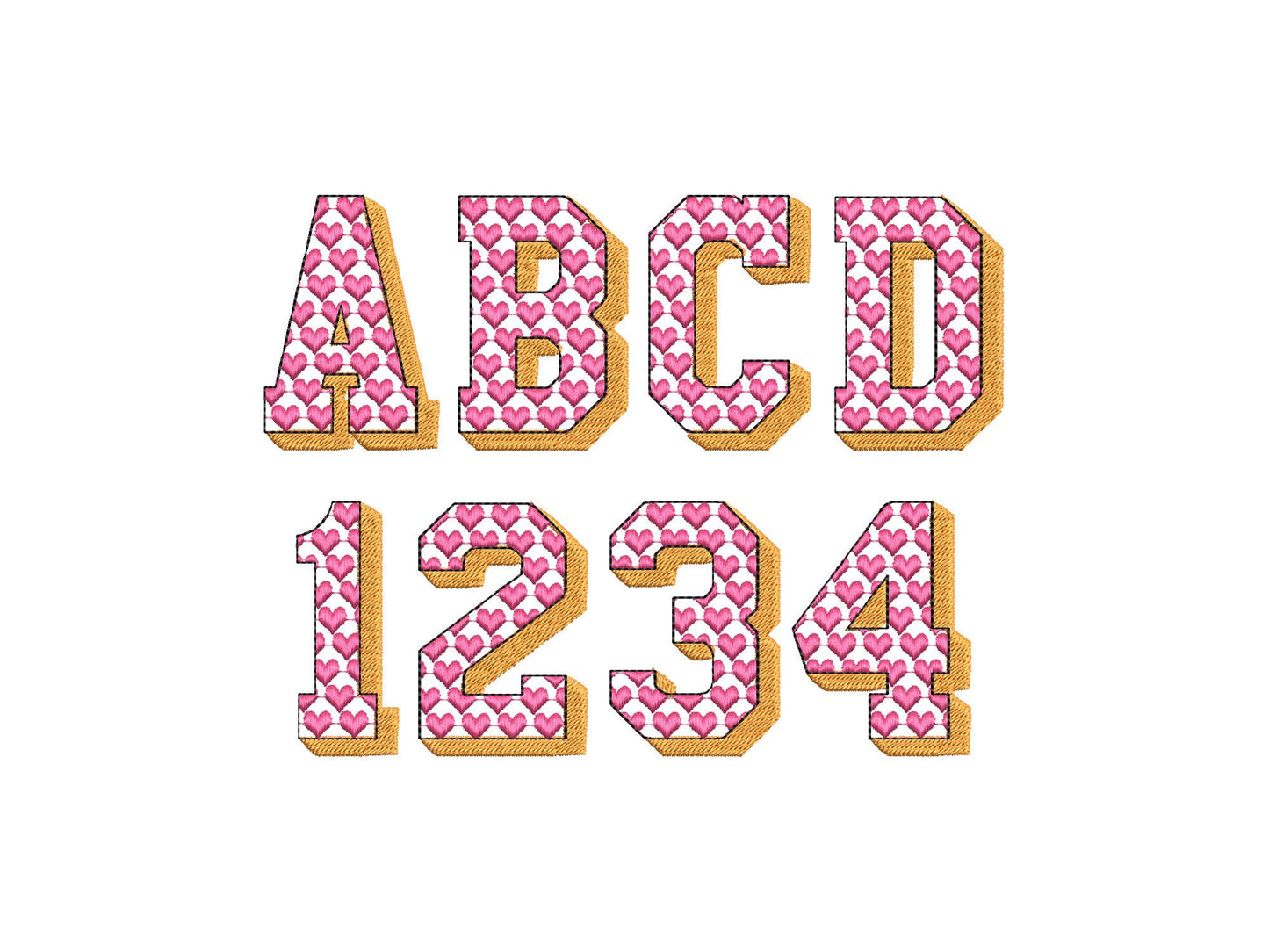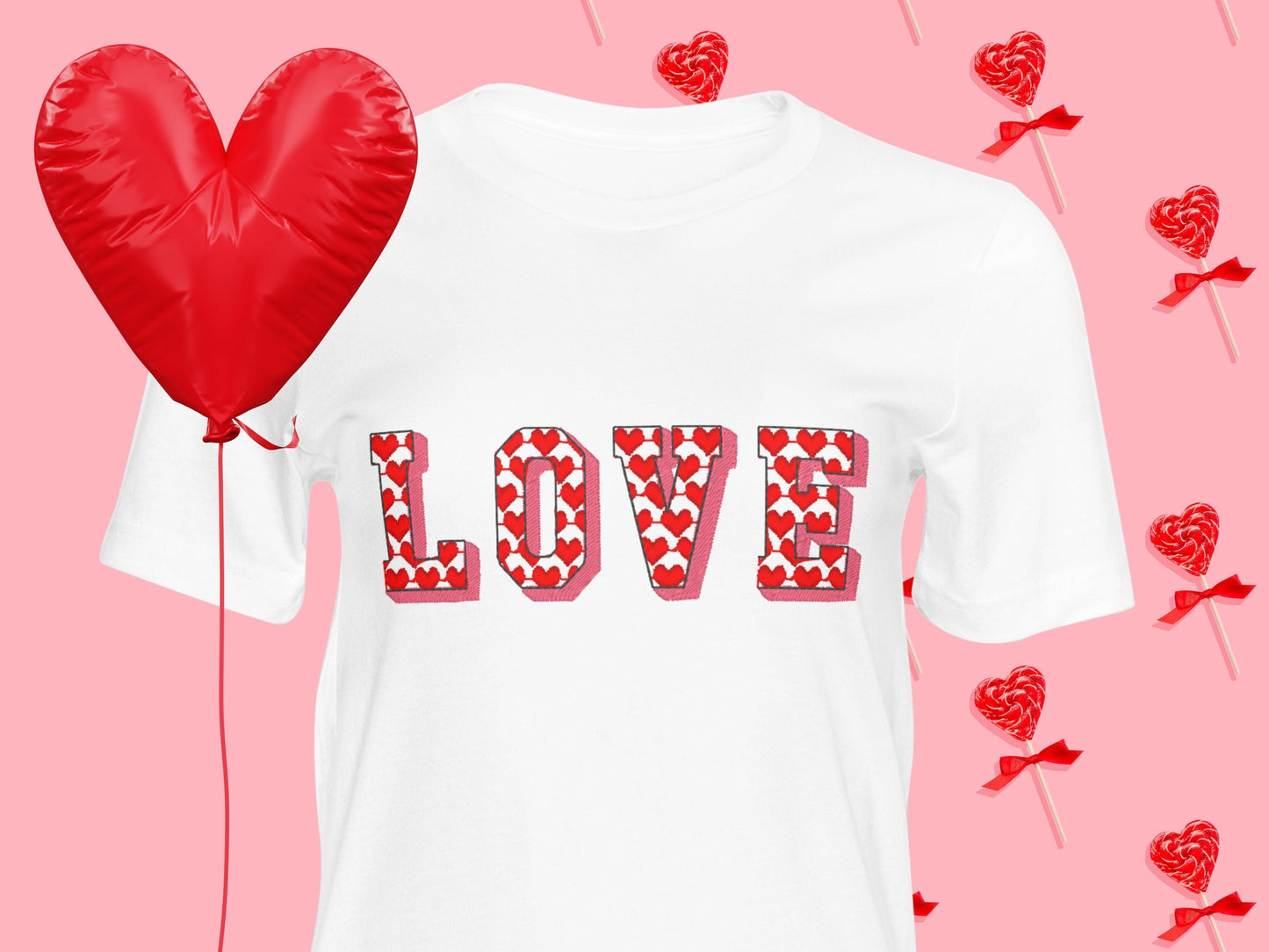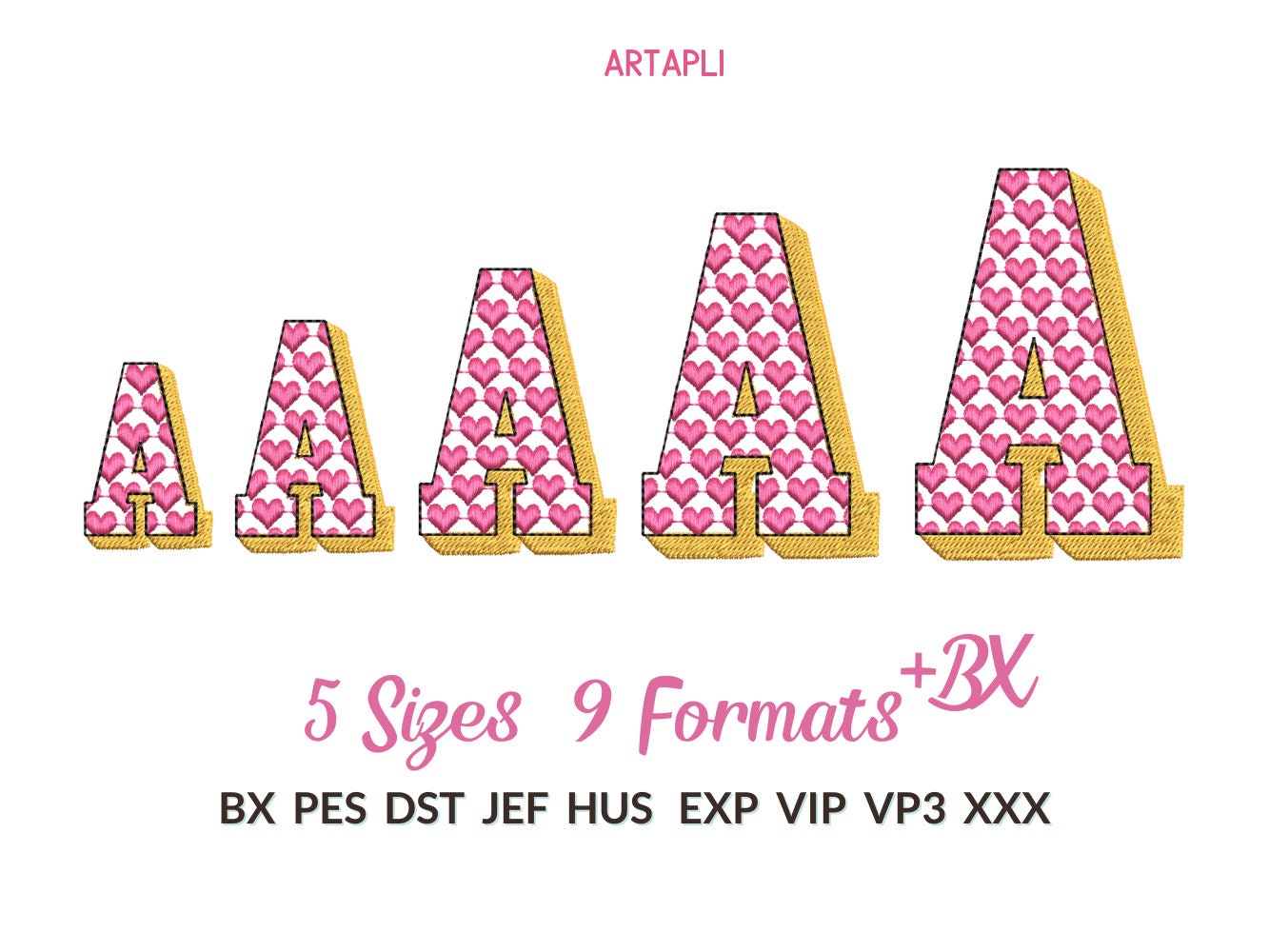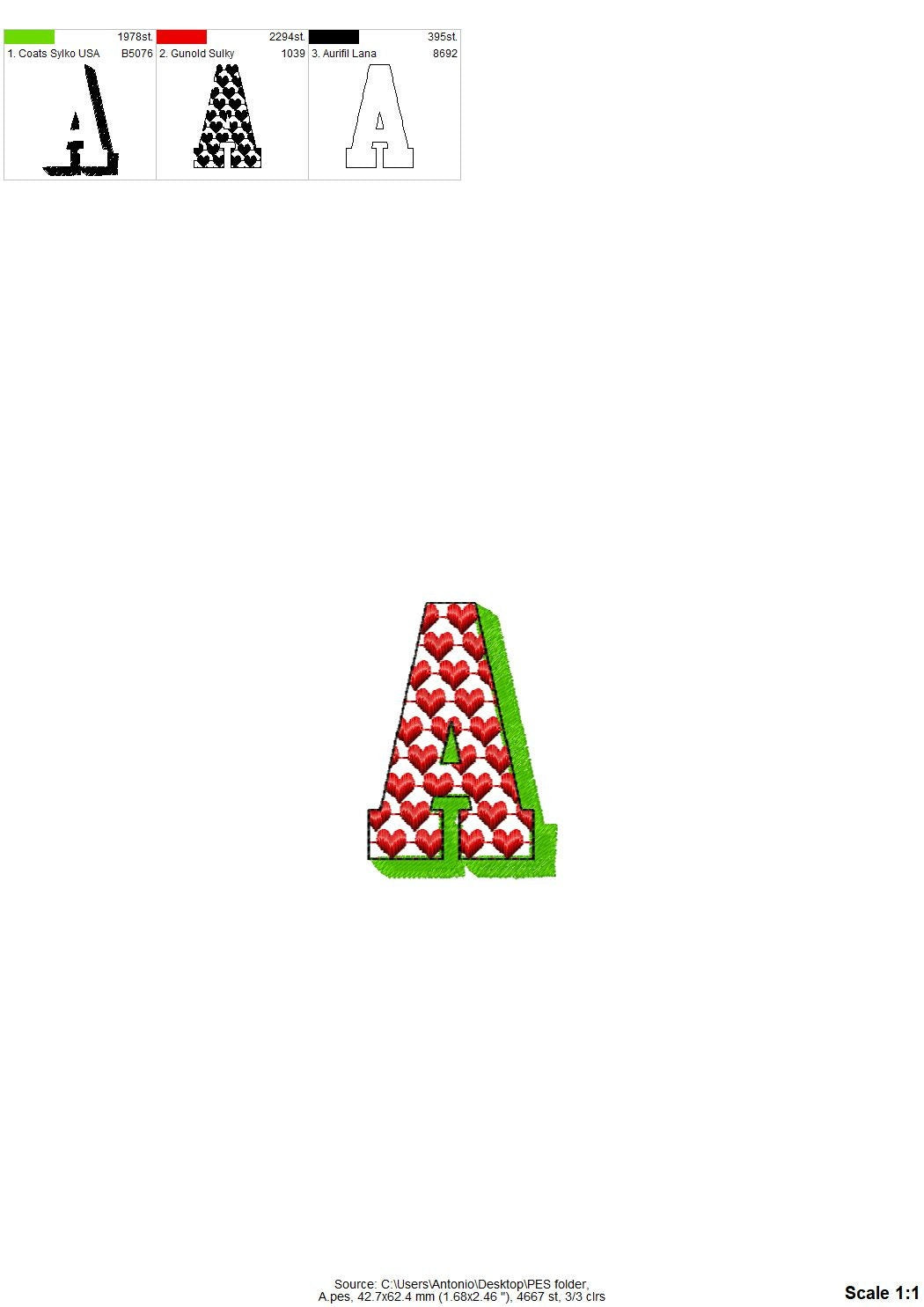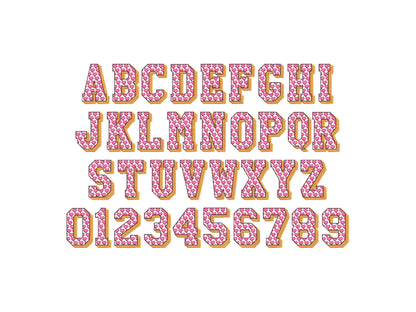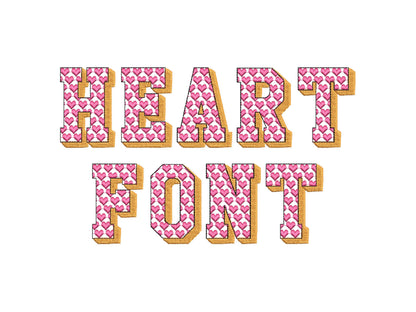
Heart Patterned Shadow Block Font
Or click to open the linkA heart patterned block font with a shadow, lovely for Valentine's names and monograms on shirts, pillows and bags.
Open letters with satin stitch hearts, a fill stitch shadow and a bean stitch outline. Uppercase A to Z and numbers 0 to 9 in five sizes: 1.6, 2, 2.4, 3 and 3.4 inches.
- Heart patterned shadow font
- Uppercase A-Z and numbers 0-9
- 5 sizes, 1.6 to 3.4 in